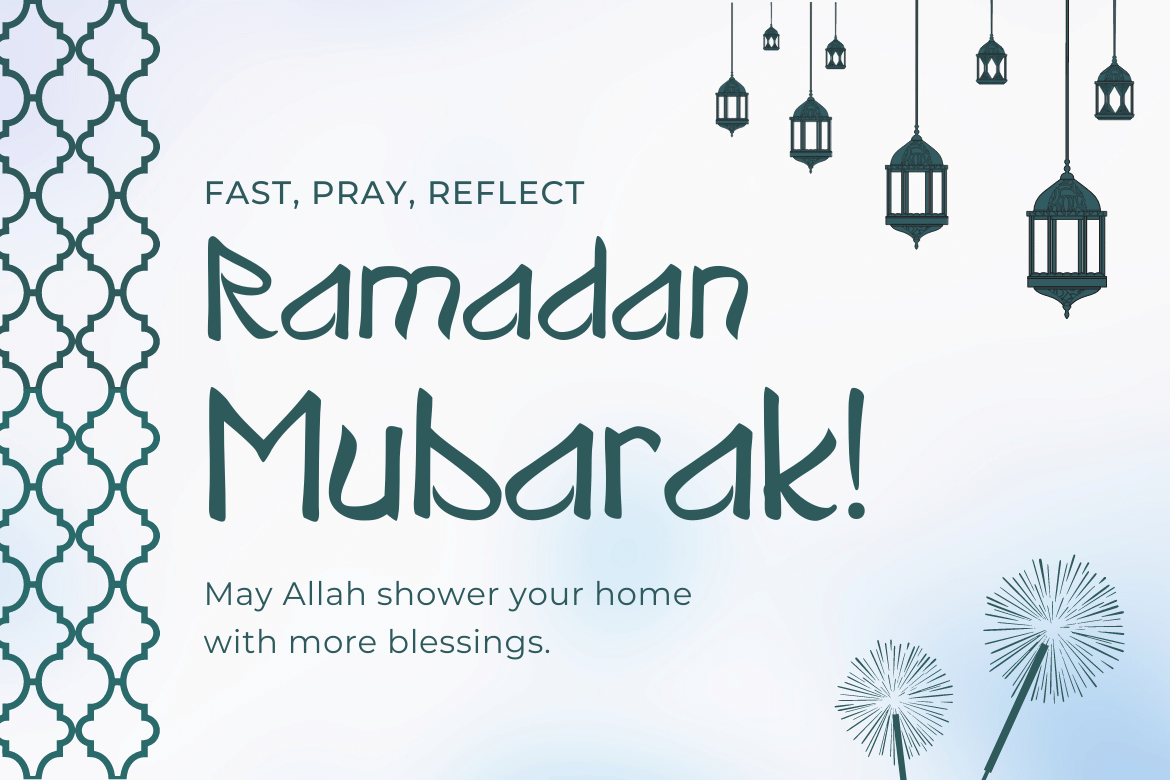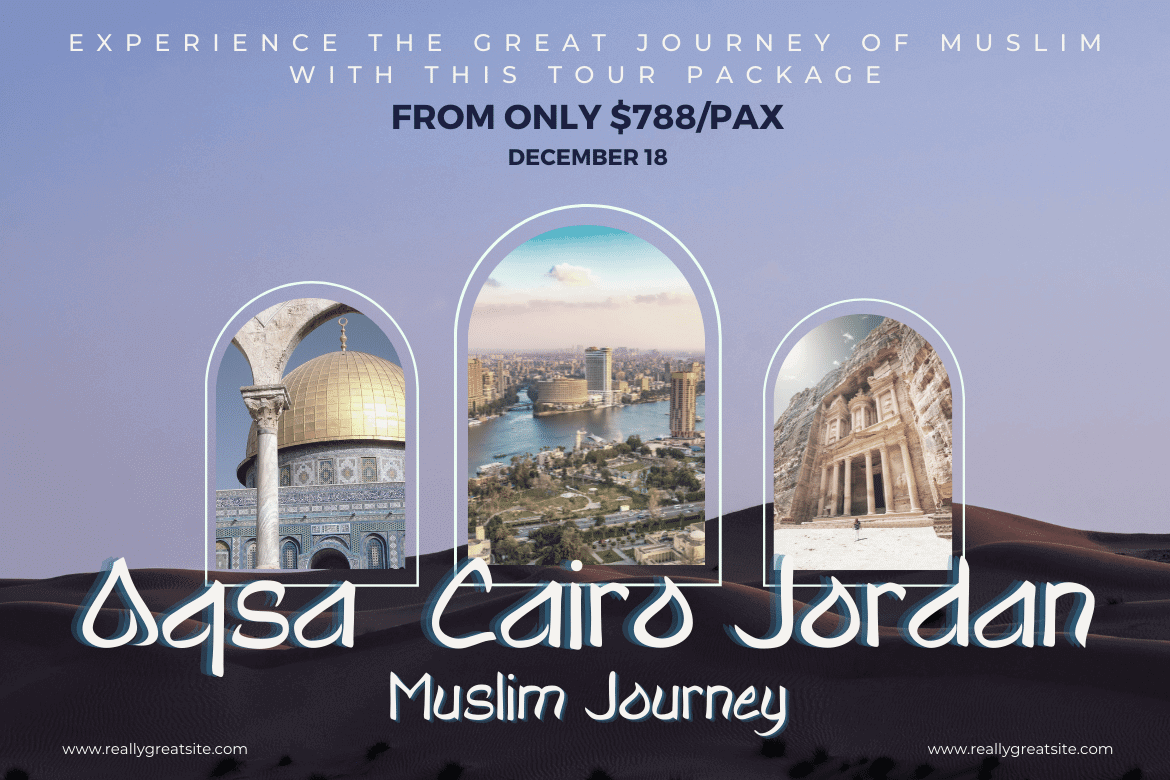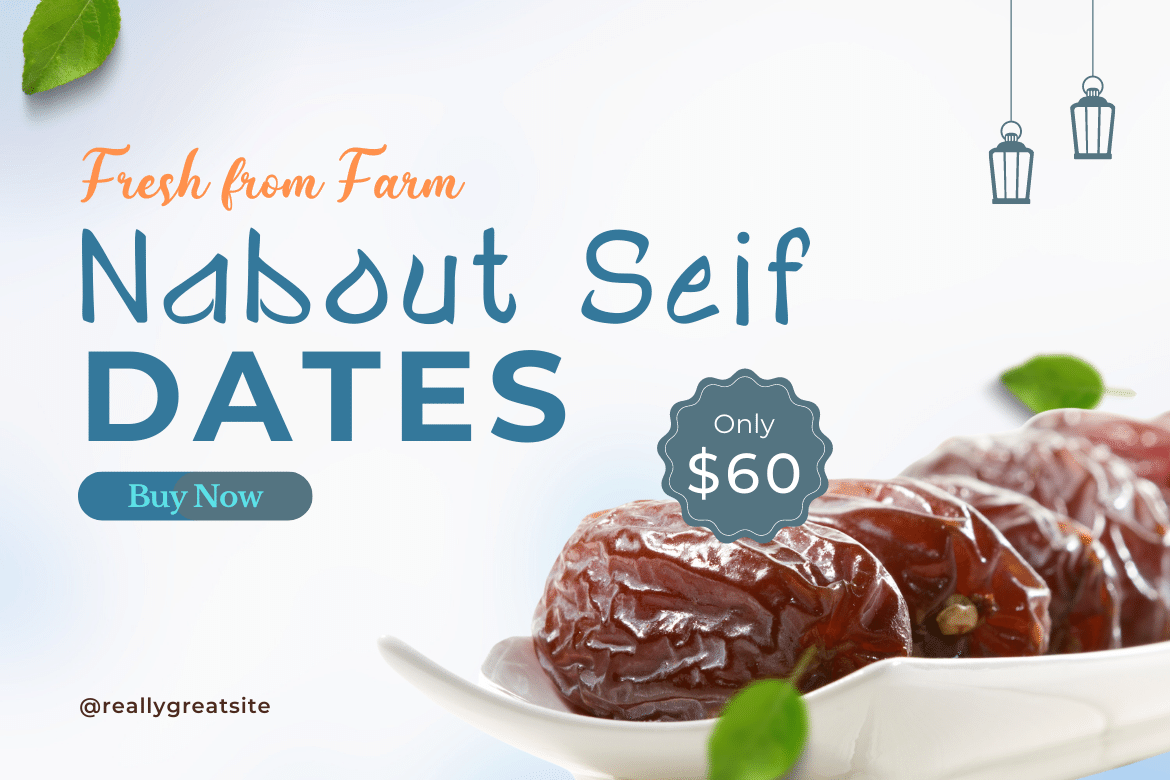
Qojarun Font
Qojarun Display Font
With Arabic Style display fonts, you can easily give your designs a genuine Middle Eastern feel. This font features characters in an Arabic style, and goes well with a wide variety of design projects, from posters to logos and beyond. Elegant calligraphy Arabic letters are easy to read, just like writing in general. This download pack contains all the characters needed to translate your project into an Arabic theme, complete with the full character set, punctuation marks, and numbers.